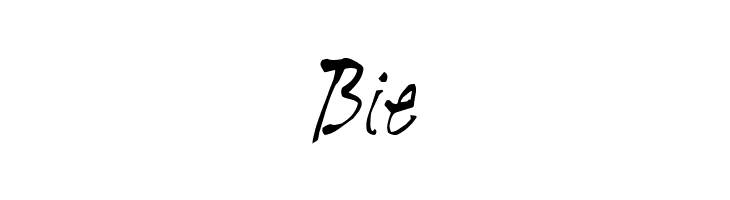
A series of whimsical stick figure illustrations conveying playful actions.
A dynamic, expressive handwritten font with fluid strokes and bold characters.
A bold, decorative font with heart motifs integrated into each character.
A playful, hand-drawn font with bold, rounded characters resembling pretzels.
A decorative font with Victorian-inspired illustrations integrated into each character.